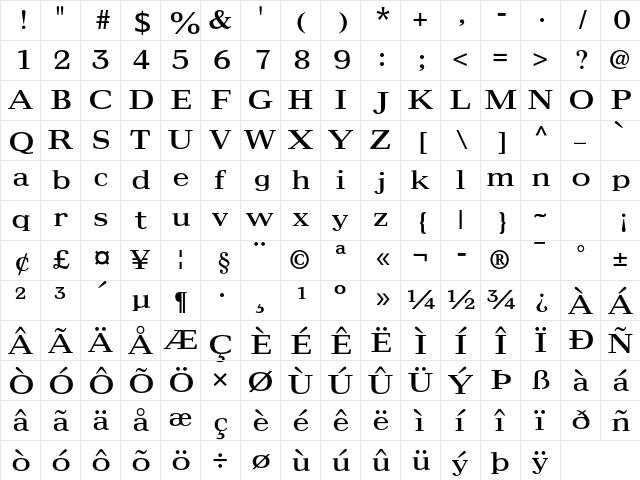
Maximus LT Std Medium
Design Context for Maximus LT Std Typeface
Maximus LT Std takes a measured approach to typography — its balanced proportions and neutral character make it a reliable workhorse for both digital and print work. The delicate stroke weight brings airiness and refinement to layouts.